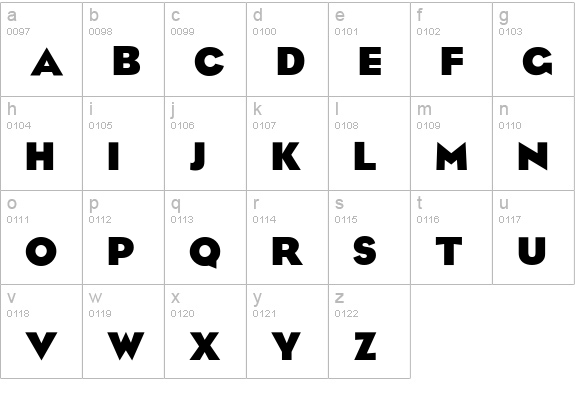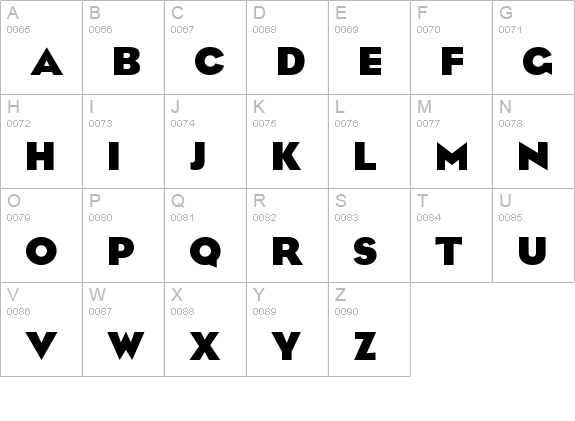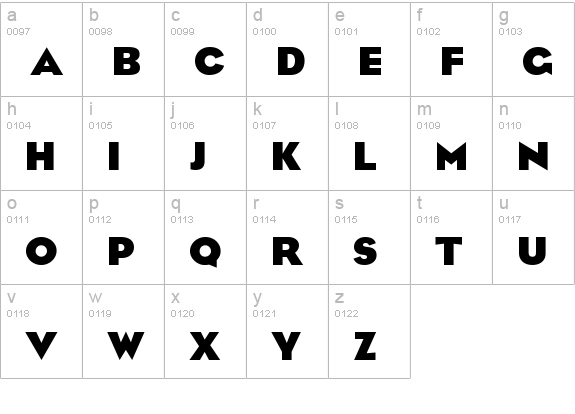
CgEagleBold Font Details
Introducing CgEagleBold font - a bold and dynamic typeface that commands attention with its strong and confident presence. This font exudes power and elegance, making it perfect for headlines, posters, branding, and any design project that requires a touch of boldness. CgEagleBold is a versatile font that can be used for both digital and print designs, adding a touch of sophistication and modernity to any project. Its clean lines and sharp edges give it a contemporary feel, while its bold weight ensures maximum impact. Best of all, CgEagleBold is available for free download at FontsMarket.com. So whether you're a designer looking to add a bold statement to your work or someone looking to make a strong impression with your projects, CgEagleBold is the perfect font for you. Download it today and elevate your designs to new heights!